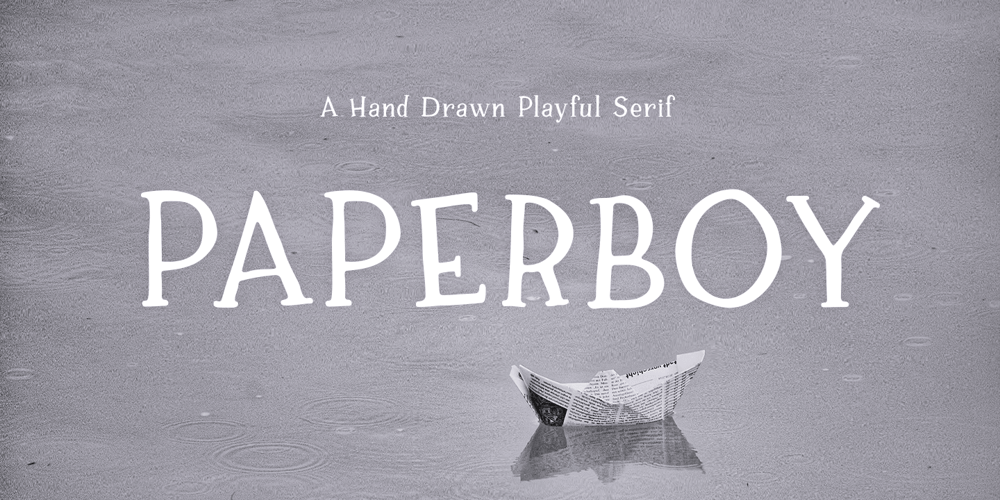
Paperboy
Paperboy font
Paperboy Font Family was designed by Ayça Atalay and published by Ayca Atalay. Paperboy contains 1 styles and family package options. Paperboy is a hand drawn serif with a whimsical look. With its playful attitude, Paperboy takes out the seriousness that comes with serif fonts, even though it follows the same typographic principles.